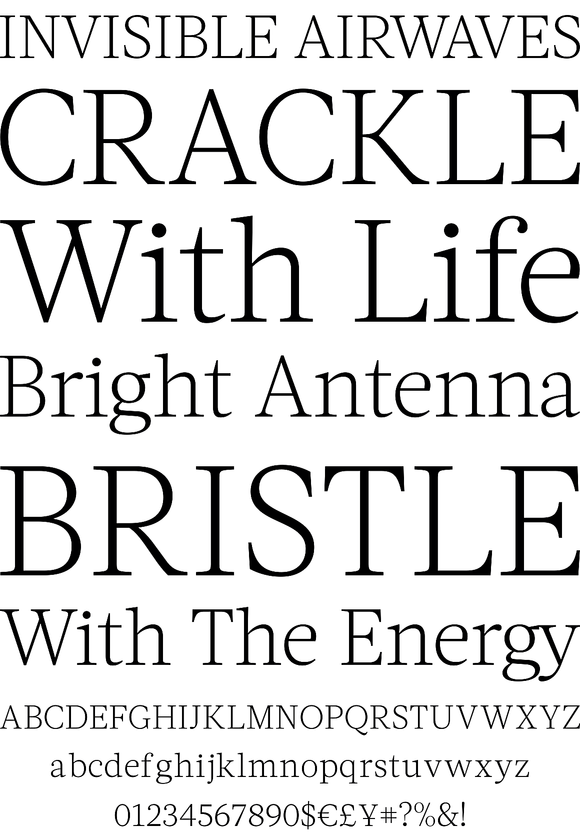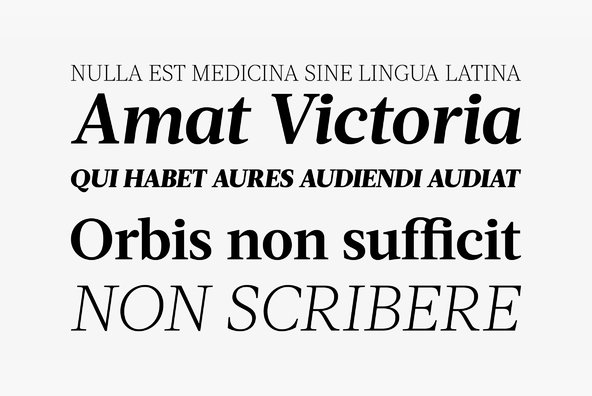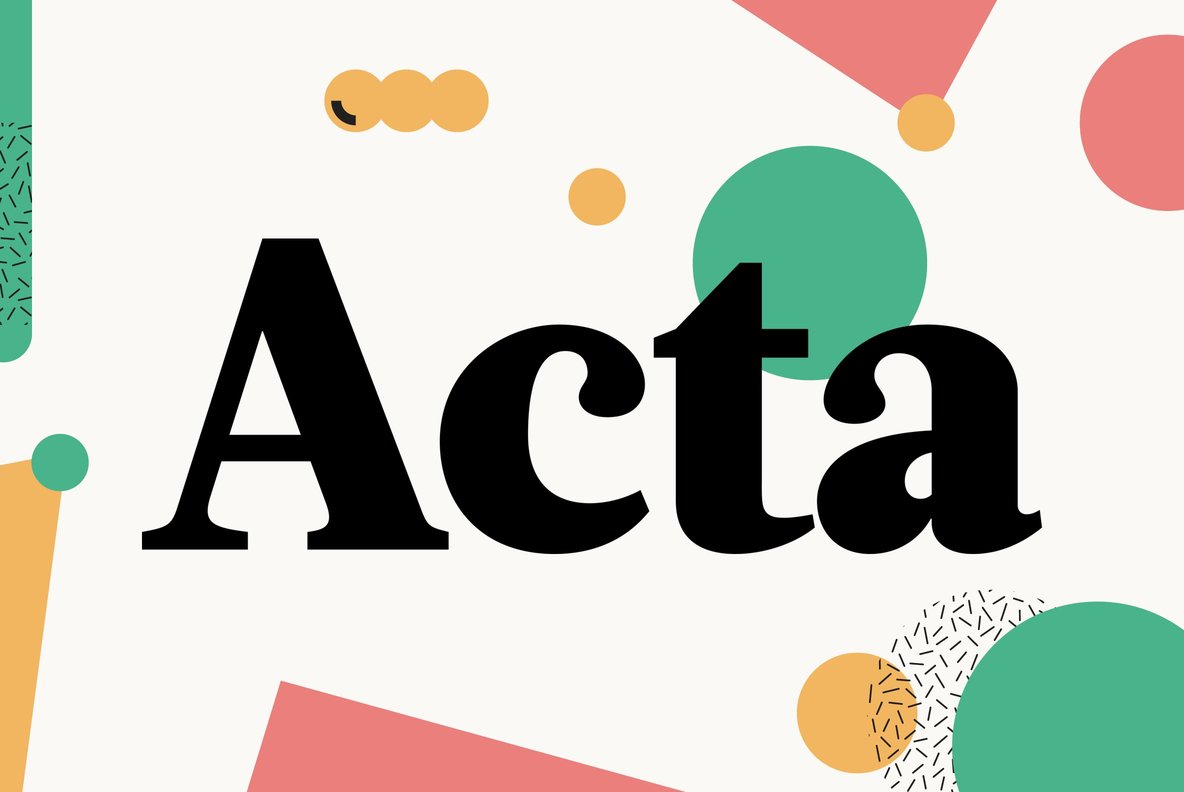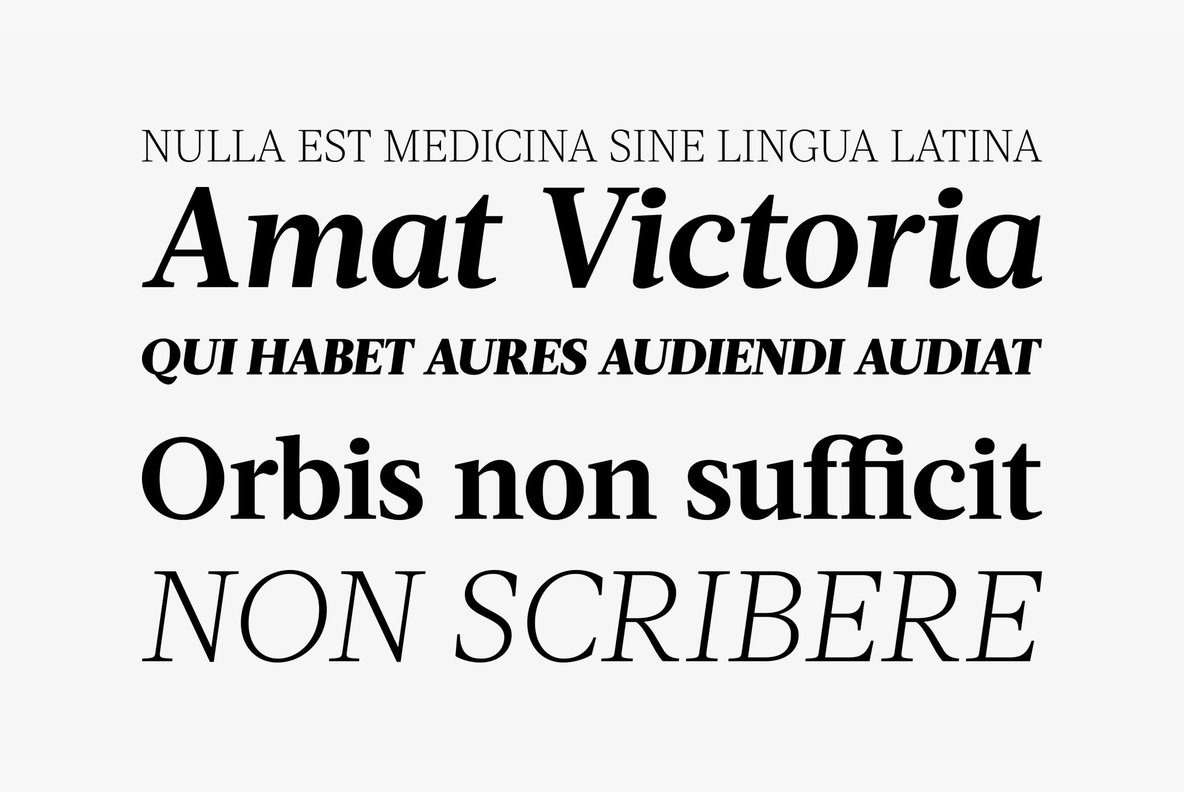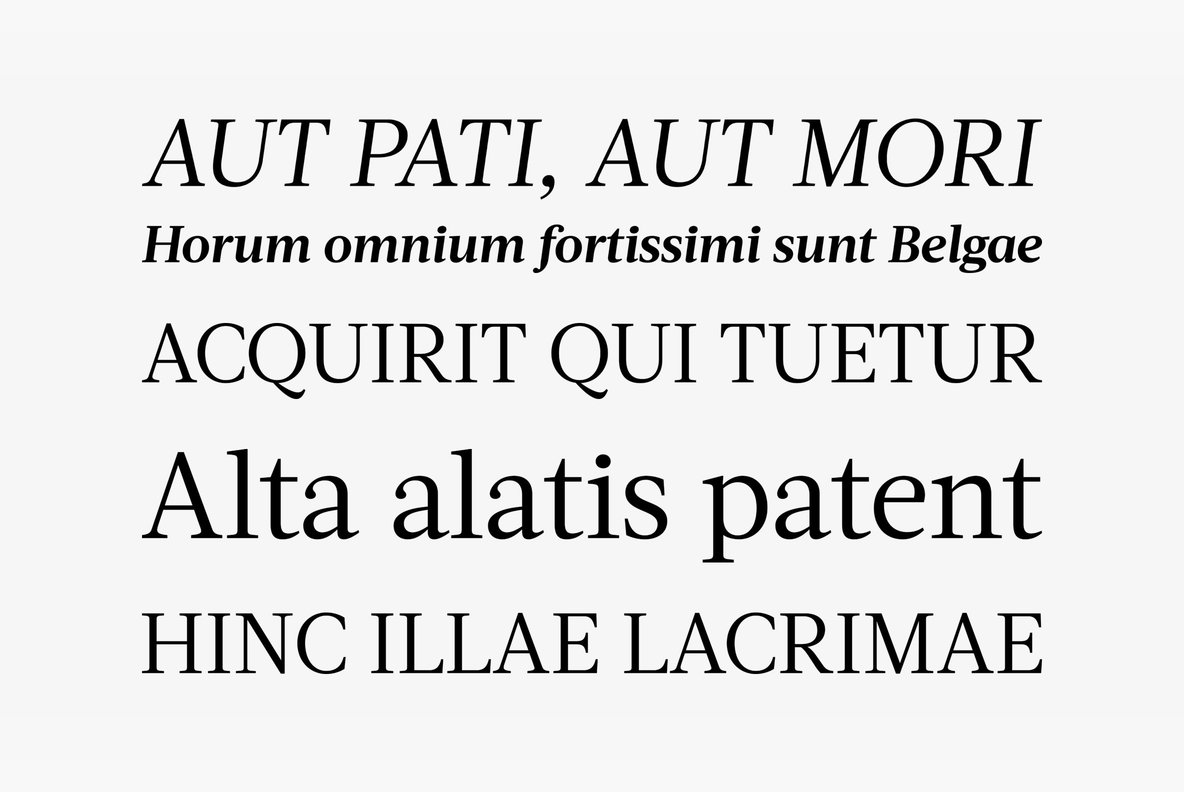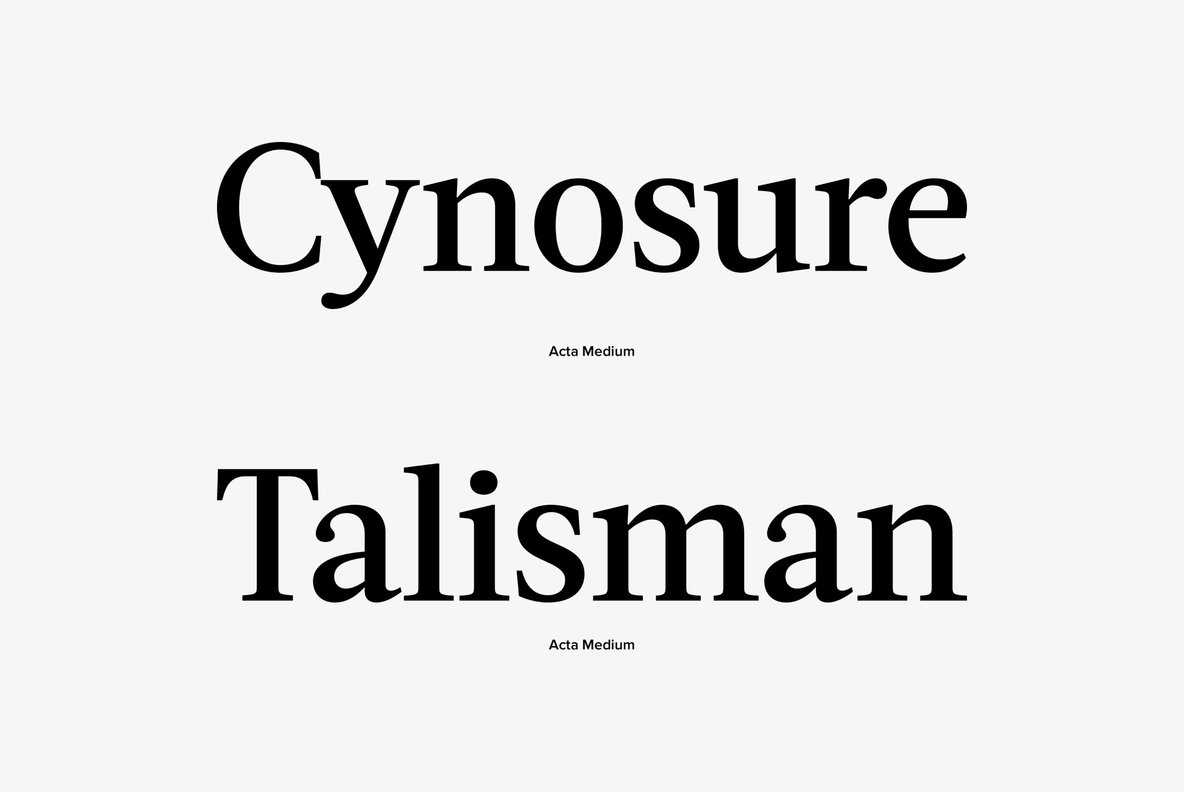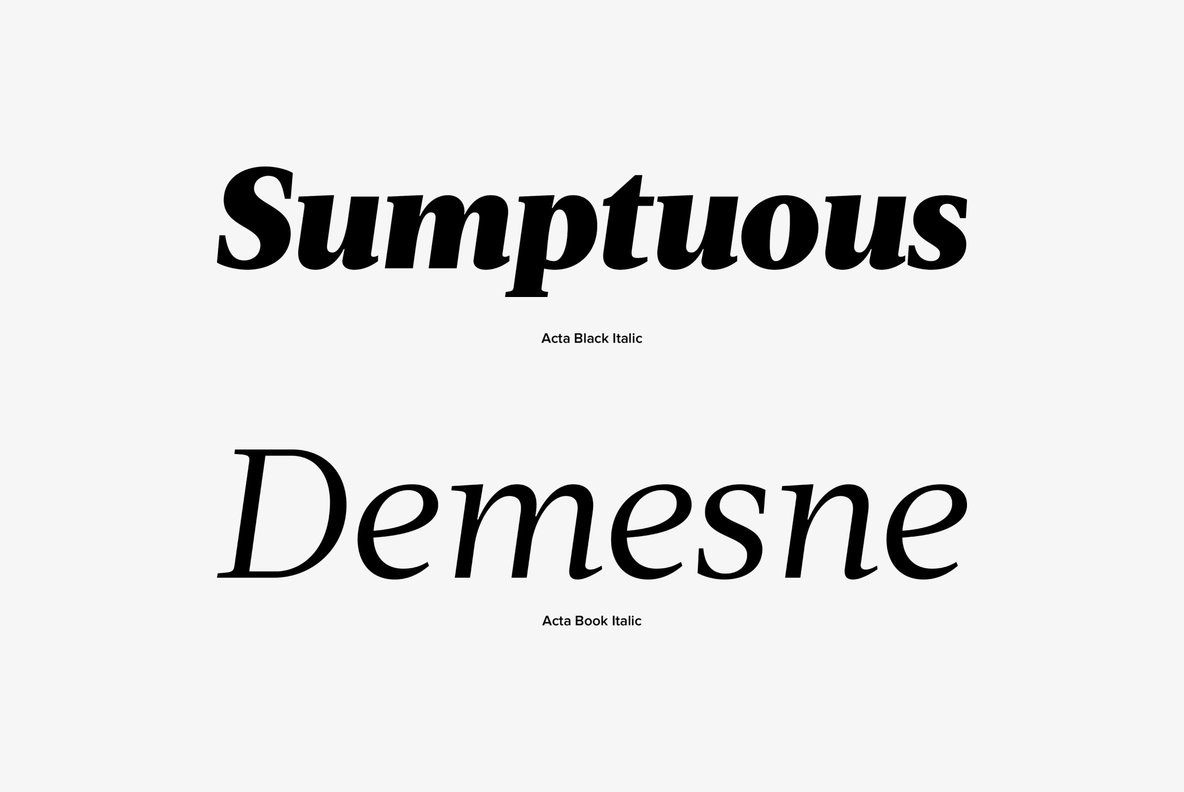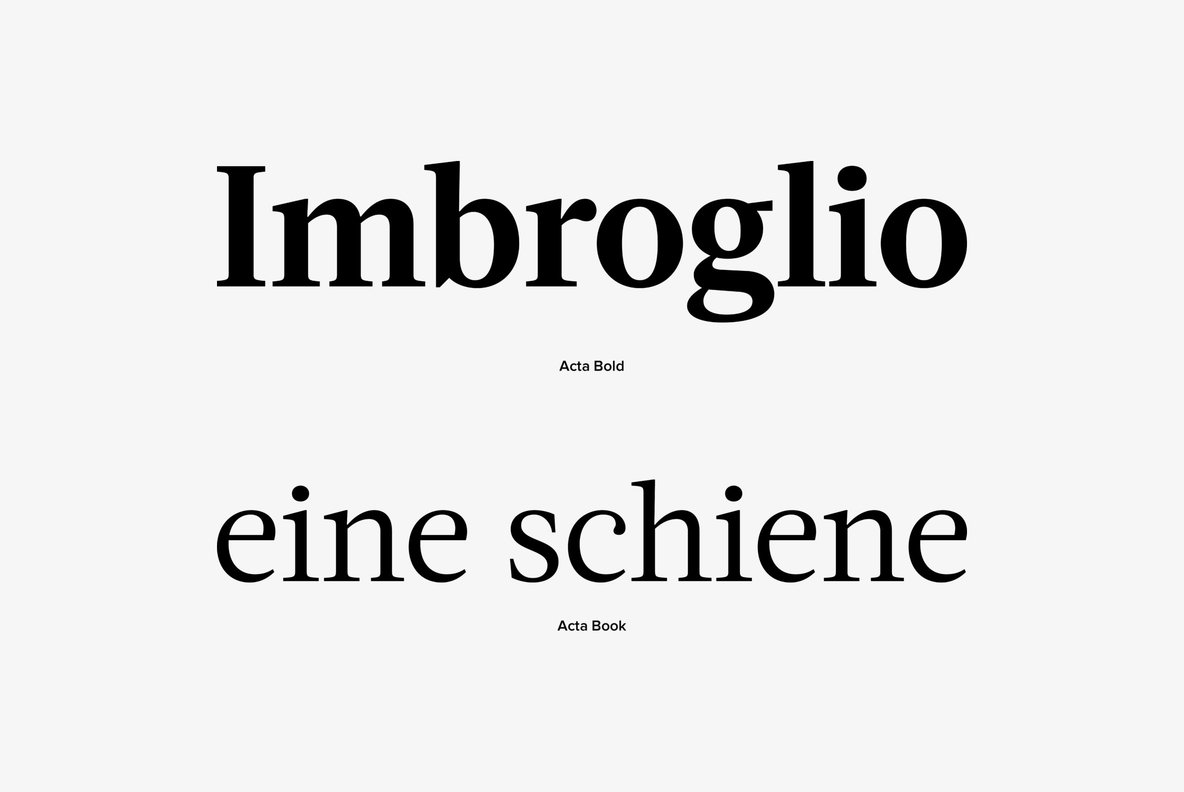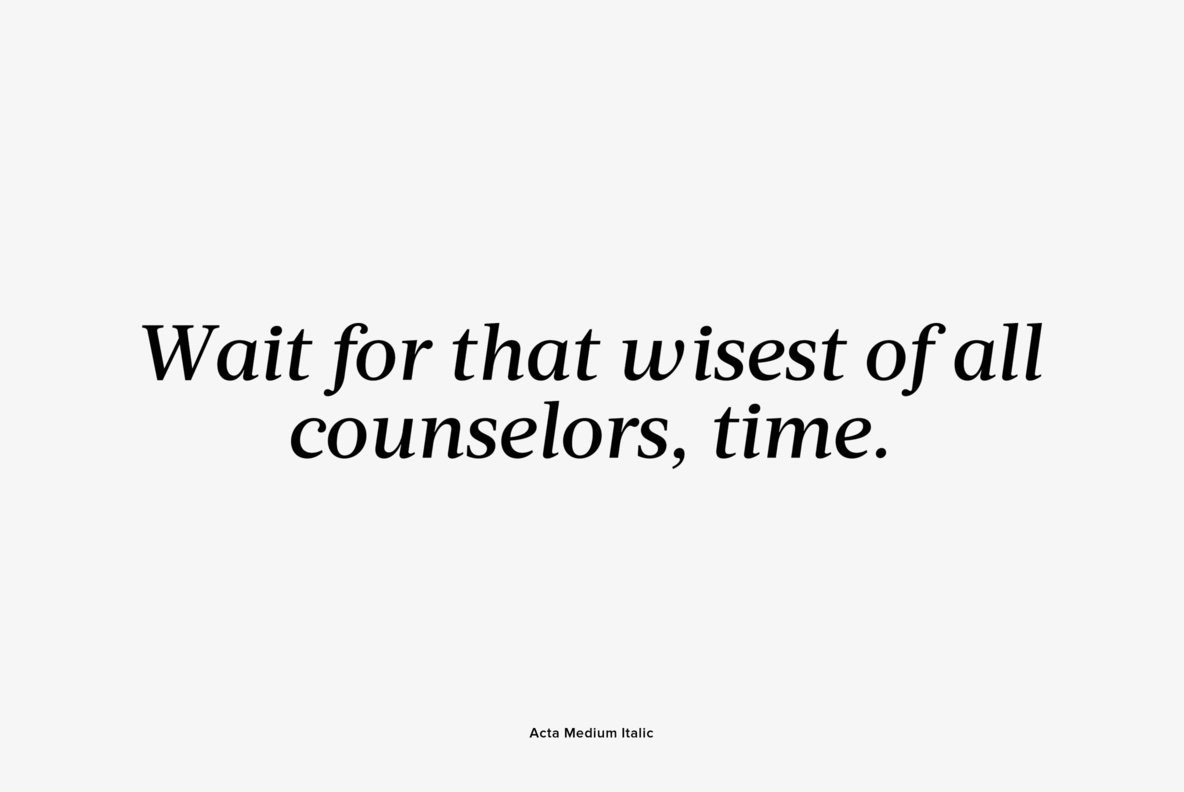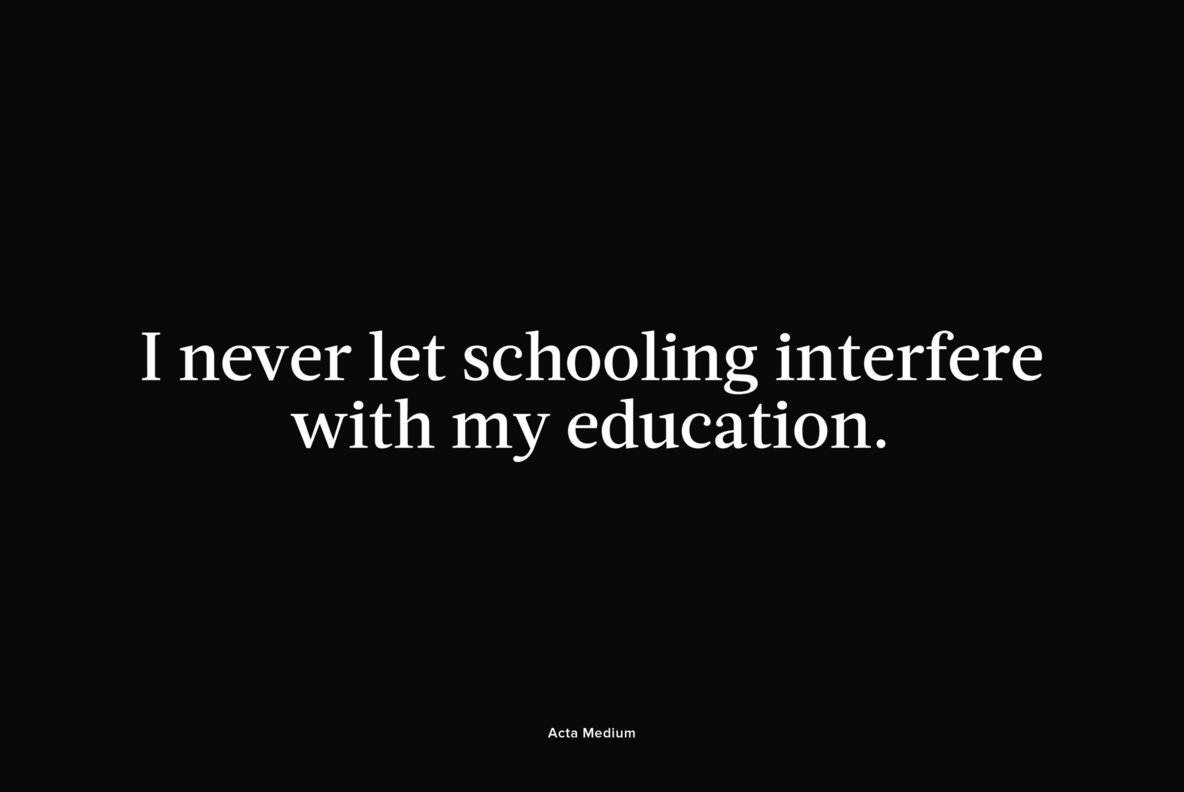
First designed for chilean newspaper La Tercera in 2010, Acta family is a clean and fresh type system, while enough conservative for newspaper setting. The complete Acta Type System contains Acta and Acta Display both with six weights with matching italics; Acta Symbols with an amazing collection of symbols specially designed for newspapers and magazines and Acta Poster, a heavyweight version, elegant and eye catching in three styles with plenty of ligatures and alternates.